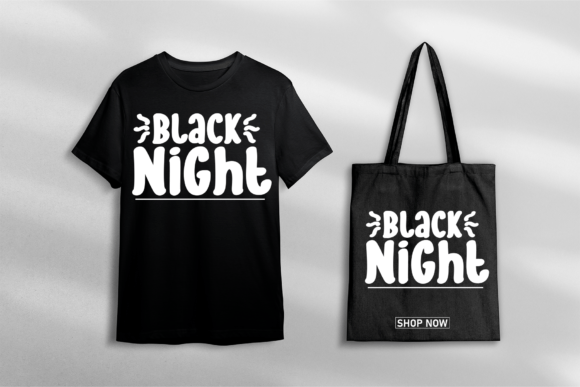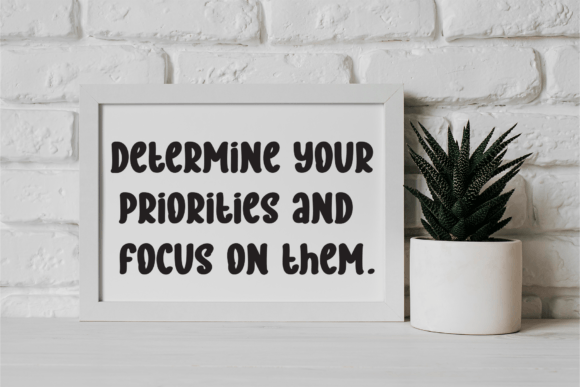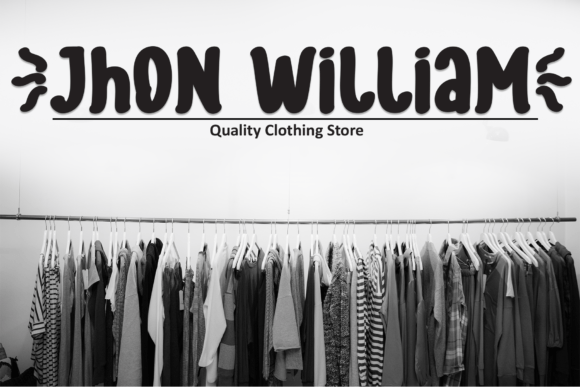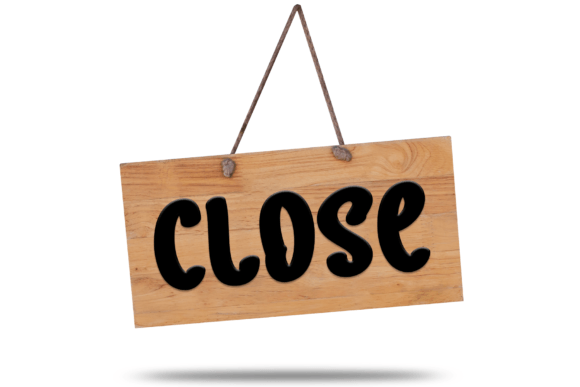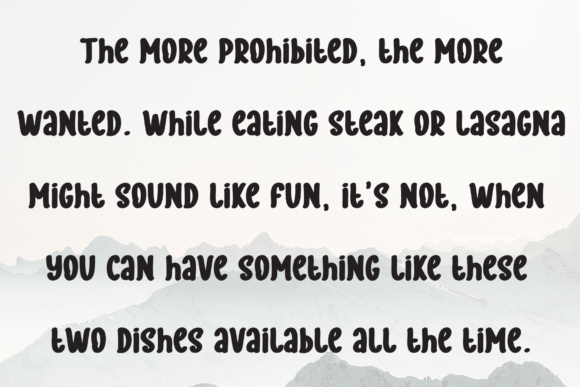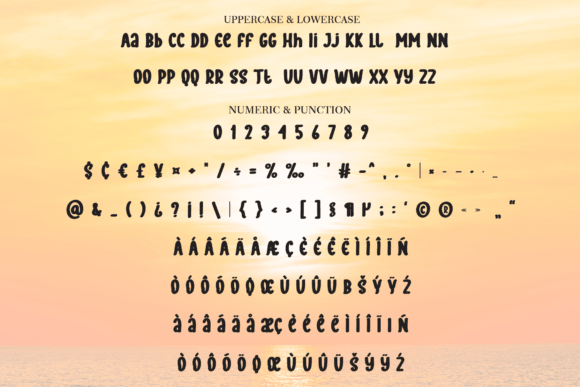
Introducing Glorius Font: The Sweet and Friendly Handwritten Font for Your Design Needs
Are you looking for a font that can add a personal touch to your designs? Look no further than Glorius Font, a sweet and friendly handwritten font that’s perfect for a variety of creative projects. In this article, we’ll take a closer look at Glorius Font, its features, and how you can use it to elevate your designs.
What is Glorius Font?
Glorius Font is a beautiful, handwritten font that’s designed to bring a fresh and casual feel to your designs. Its sweet and friendly style makes it ideal for writing wedding invitations, cards, or any other design that might need a lovely touch. Whether you’re a designer, crafter, or DIY enthusiast, Glorius Font is a great addition to your font collection.
Key Features of Glorius Font
• Handwritten style: Glorius Font has a beautiful, handwritten style that’s perfect for adding a personal touch to your designs.
• Sweet and friendly: The font’s sweet and friendly style makes it ideal for designs that require a touch of warmth and personality.
• Fresh and casual: Glorius Font has a fresh and casual feel that’s perfect for modern designs.
• Easy to read: The font is easy to read, making it perfect for body text and headings.
• Versatile: Glorius Font can be used for a variety of design projects, including wedding invitations, cards, posters, and more.
How to Use Glorius Font in Your Designs
Glorius Font is a versatile font that can be used in a variety of design projects. Here are some ideas to get you started:
• Wedding invitations: Glorius Font is perfect for writing beautiful wedding invitations that set the tone for a special day.
• Cards: Use Glorius Font to create personalized cards for birthdays, anniversaries, and other special occasions.
• Posters: Add a touch of elegance to your posters with Glorius Font.
• Social media graphics: Use Glorius Font to create engaging social media graphics that stand out.
• Branding: Glorius Font can be used to create a unique brand identity that’s sweet and friendly.
Tips for Using Glorius Font Effectively
Here are some tips for using Glorius Font effectively in your designs:
• Pair it with other fonts: Glorius Font pairs well with other fonts, so don’t be afraid to experiment with different combinations.
• Use it for headings and body text: Glorius Font is easy to read, making it perfect for both headings and body text.
• Adjust the font size: Experiment with different font sizes to create visual interest in your designs.
• Add a personal touch: Use Glorius Font to add a personal touch to your designs, such as a handwritten note or a quote.
Glorius Font is a beautiful, handwritten font that’s perfect for designers and crafters who want to add a personal touch to their designs. Its sweet and friendly style makes it ideal for a variety of creative projects, from wedding invitations to social media graphics. With its ease of use and versatility, Glorius Font is a great addition to any font collection.